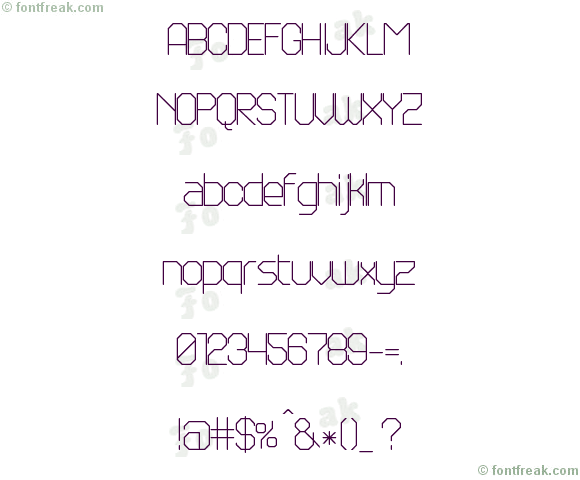
JD Lecce Regular
About JD Lecce Regular
JD Lecce Regular is a captivating sans-serif font designed by Jecko Development and released in 2011. This font embodies a modern aesthetic that is both clean and approachable, making it a versatile choice for various design projects. The stroke weight is consistent, providing a harmonious appearance, while its minimal contrast enhances readability across different mediums. The letterforms feature ample spacing, contributing to an airy feel that makes it ideal for both digital and print applications.
This font is particularly well-suited for a range of specific use cases. It can elevate wedding invitations with its elegant simplicity, making the text inviting and readable. Additionally, JD Lecce Regular works beautifully on restaurant menus, where clarity and style are paramount in conveying the dining experience. Its modern flair also makes it an excellent choice for movie posters, drawing attention without overwhelming the visual narrative. Small business owners will find it useful for branding materials, as it reflects professionalism and creativity. Content creators can leverage this font in social media graphics, ensuring their posts stand out while maintaining a polished look.
What sets JD Lecce Regular apart is its balance of modernity and simplicity, making it a go-to font for those looking to create engaging designs. The combination of its clean lines and approachable style ensures that it resonates with diverse audiences, making the JD Lecce Regular font free download an attractive option for anyone in need of a versatile typeface.